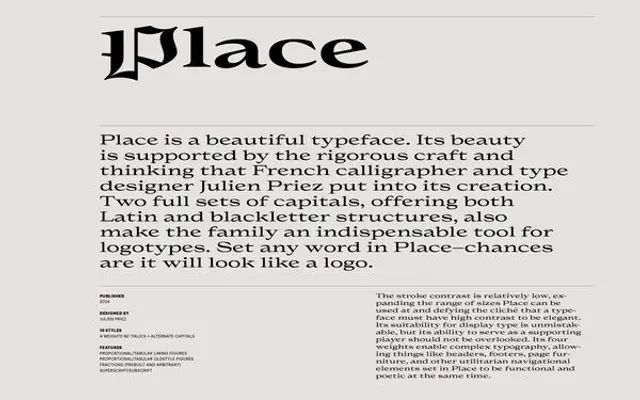
Place specimen from Commercial Type
A wide display serif by Julien Priez with roman and blackletter capitals, drawn for beauty, elegance and logotype work.
A two-width family by French designer Julien Priez. Place Display is a wide display serif with both roman and blackletter capitals, drawn for logotypes and luxurious setting at large sizes, while Place adds Light, Regular, Bold and Black with matching italics for editorial use, plus Extra alternates. Suits fashion, beauty and cultural work where a serif needs to feel inventive without losing classical poise.
Commercial Type frame Place as a wide display typeface focused on beauty and elegance, with both roman and blackletter capitals and a particular talent for setting logotypes. Drawn by French designer Julien Priez against an open-ended brief.